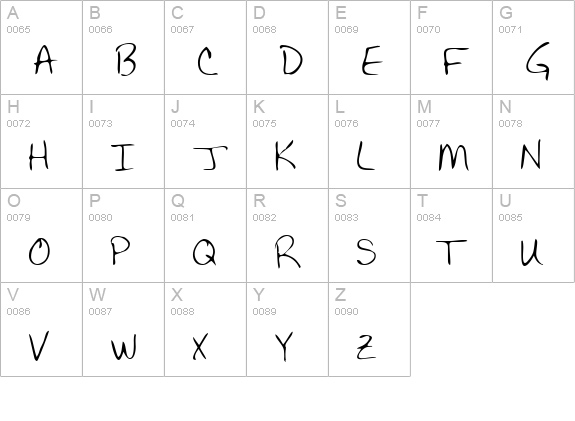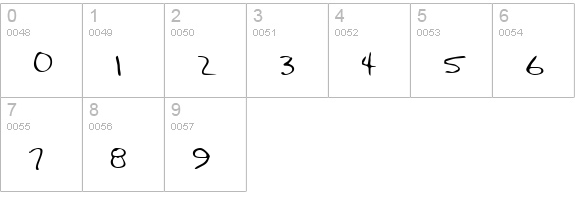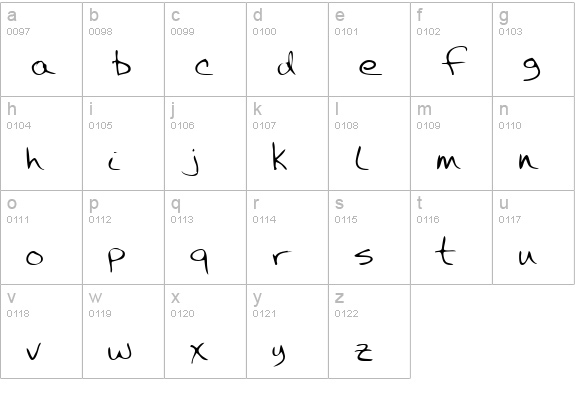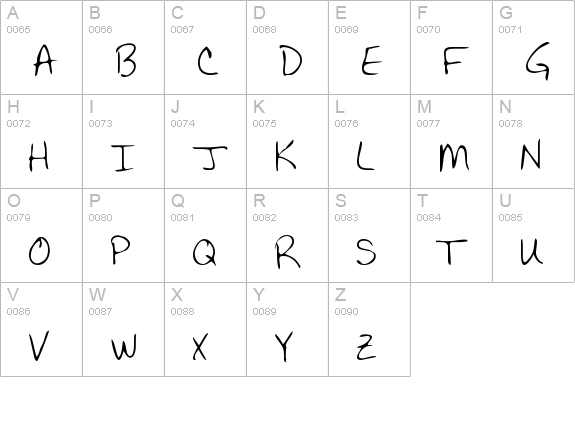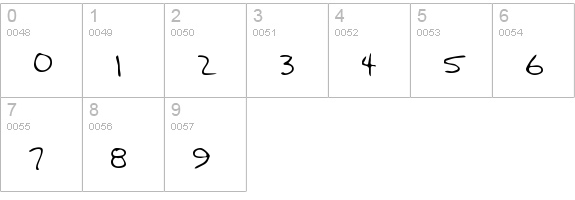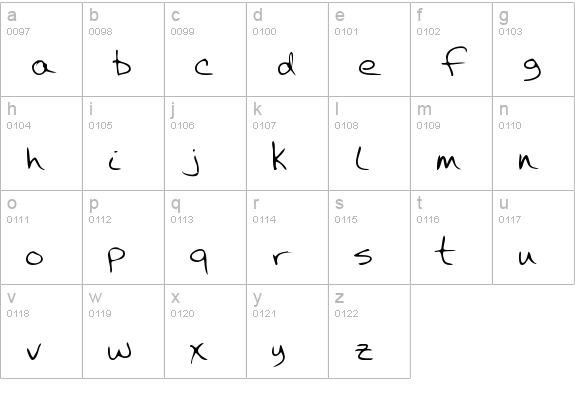
CalvinsHand Regular Font Details
CalvinsHand Regular is the standard, neutral variant in the CalvinsHand typeface family \xE2\x80\x94 well suited to general body text, paragraphs, and standard typographic work.
CalvinsHand Regular font is a charming and playful typeface that adds a touch of whimsy to any design project. With its hand-drawn style and unique character, this font is perfect for creating eye-catching headlines, invitations, posters, and more. The flowing lines and uneven strokes give CalvinsHand Regular a handmade feel that is both modern and timeless. Best of all, CalvinsHand Regular font is available for free download at FontsMarket.com. Whether you're a designer looking to add a personal touch to your work or just someone who appreciates beautiful typography, this font is sure to impress. Don't miss out on the opportunity to enhance your projects with this delightful and versatile typeface. Download CalvinsHand Regular today and let your creativity shine!